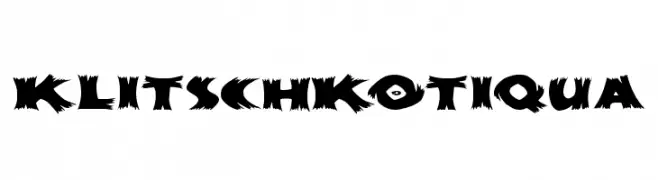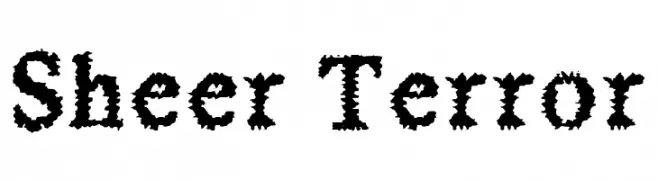
A bold, edgy font with sharp, jagged edges and a dynamic, aggressive style.
Abstract, hand-drawn decorative glyphs with organic, expressive forms.
An artistic and decorative font with intricate silhouette illustrations.
A collection of festive, circular icons with Christmas-themed illustrations.
A highly legible, modern serif font designed for comfortable reading.
A bold, distressed font with irregular edges and a gritty aesthetic.